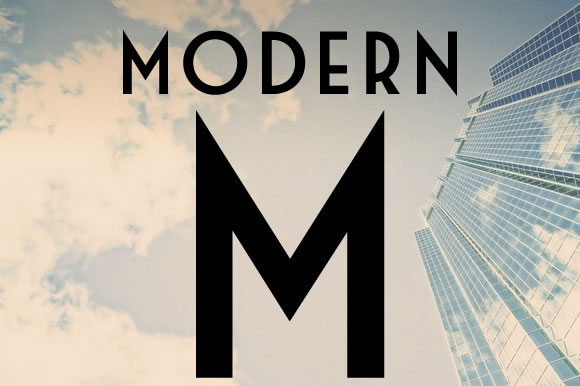
Modern M Font
About the Modern M Font
Step up your design game with Modern M Font, a font that exudes confidence and style. A clean, squared sans serif font with a modern look.
The Novus Sans typeface is great for both digital use and print.
Modern M Font’s clean lines and geometric construction make it ideal for headlines, logos, and short-form text in branding materials and posters. Its strong, modern personality also translates well to packaging design, particularly for products emphasizing a contemporary aesthetic. However, its squared forms and potentially high x-height might prove less legible for extended body copy or UI elements requiring high readability at small sizes.
Pairing Modern M with a classic serif like Garamond or a warmer, rounded sans-serif like Lato creates pleasing contrast. For a more modern and sleek feel, consider pairing it with a geometric sans-serif like Futura or a minimalist font like Montserrat. The choice depends on the desired balance between Modern M’s bold personality and the supporting typeface’s character.
Its overall personality is undeniably modern and confident, lending itself well to brands that convey sophistication, innovation, and a forward-thinking approach.
Modern M Font Usage Examples
Modern M Font Example